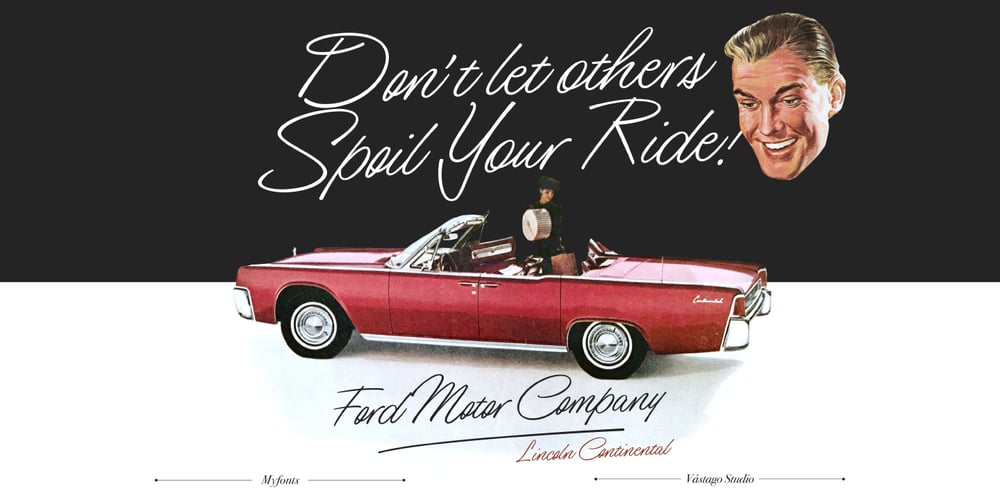
Nacho Script Pro Font Family was designed by Andrew Ramirez and published by Vástago Studio. Nacho Script Pro contains 1 styles and family package options. Nacho Script is a classic and casual typeface ideal for give to your design a confortable touch of traditional feeling, casual style and luxury looks. Is a script system of glyphs with a subtle modulations in it strokes, because it’s inspired on the classic advertising from the golden age of ads in 1950; promptly in 1957. Was so amazing design it and create it for multiple uses like ads for food, drinks, traveling, commercial products, and personal things, and thats it. Enjoy it like we enjoy it creating it. Thanks for your buy.